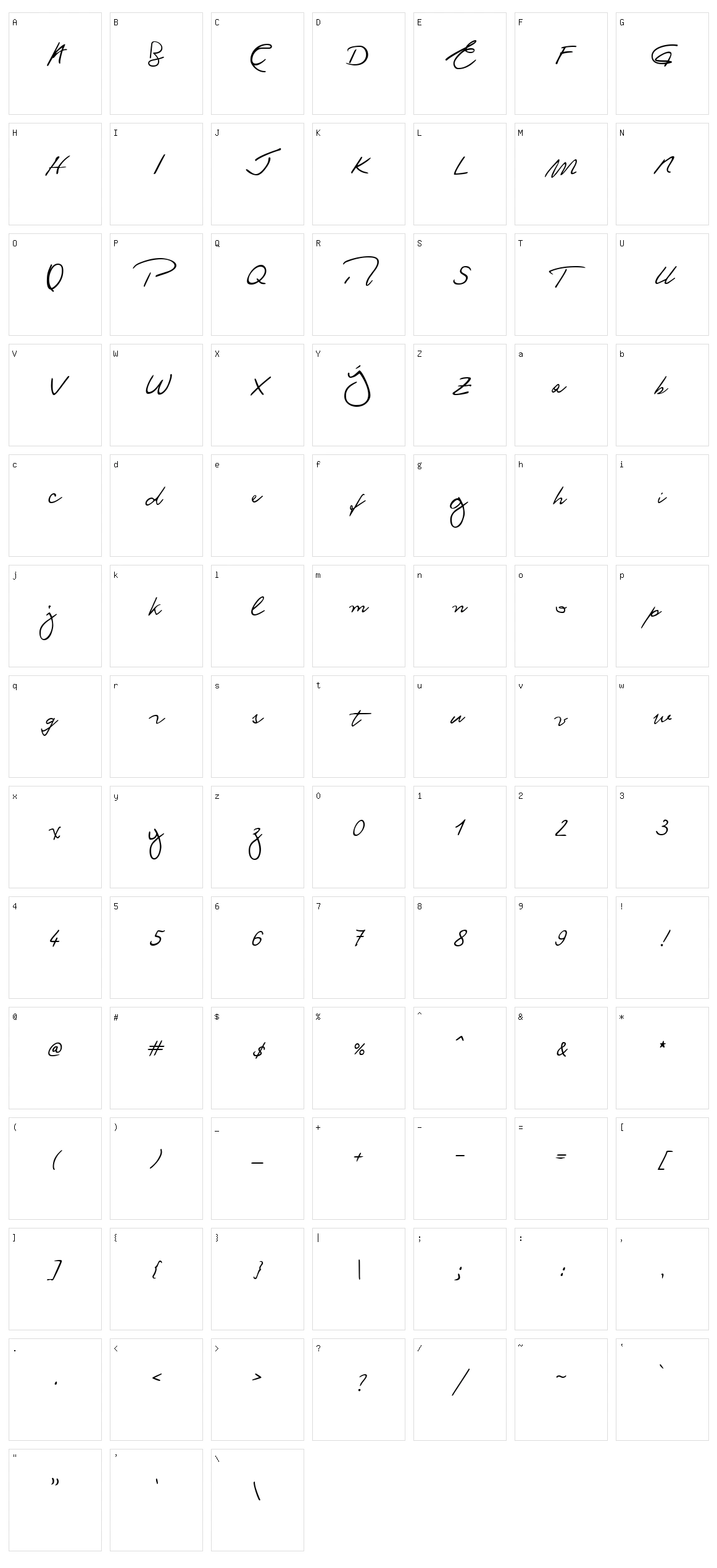
The free font Ronald Handwriting is carefully designed by Paul Sutcliffe, showcasing a thoughtful balance of creativity and usability and falls under the Script font style. When you download the ZIP file, it contains only 35.95 KB of font files, making it lightweight and quick to download. Please review the license details below to understand permitted usage and distribution rights. If license information is not available, we recommend using this font for personal projects only or contacting the author directly for commercial usage permissions.